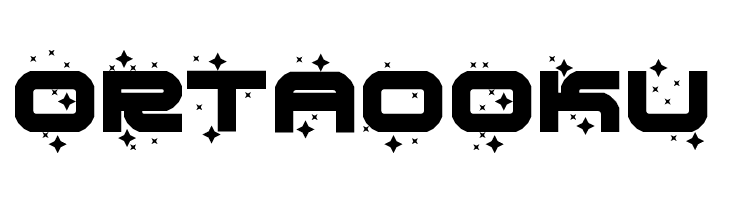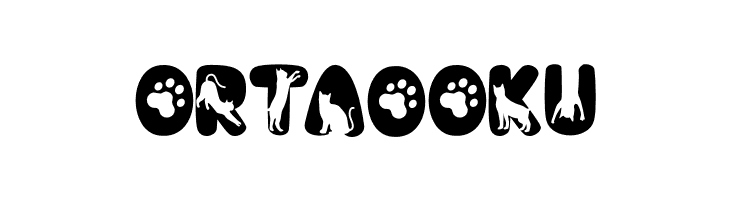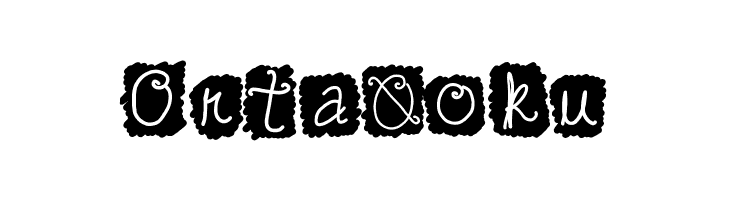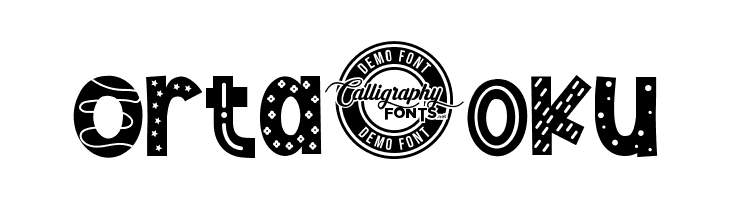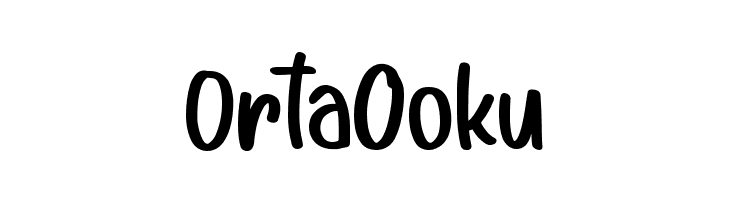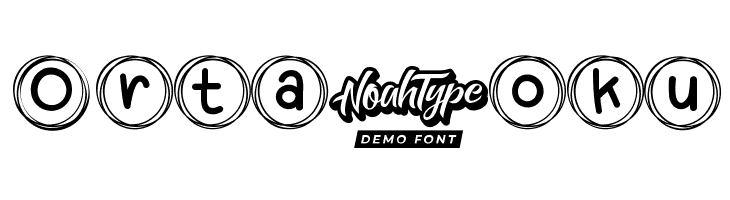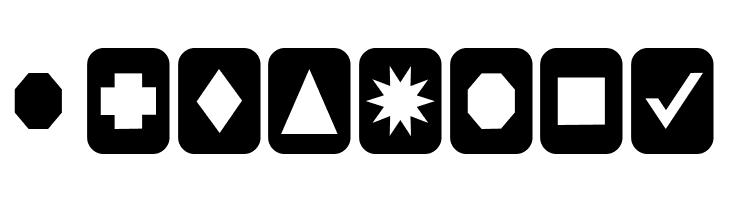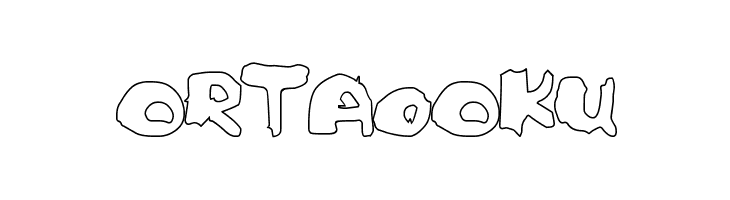
• Cut Outs for 3D FX
• Cute Cartoon
A playful, hand-drawn font with a cartoonish style and lively outlines.
• Cute Crafts Demo Decorative
A playful and decorative font with whimsical patterns and textures.
• Cute Cursive Blackout
A playful, cursive font with bold, cloud-like enclosures.
• Cute Decor Demo
A playful, decorative font with bold, rounded letters encased in circular outlines.
• Cute Meow
A playful font with cat-themed elements and bold, rounded characters.
• Cutie Biscuit
A playful, handwritten font with bold, rounded strokes and a whimsical style.
• Cutie Shark
A playful, handwritten font with smooth, rounded edges and a casual style.
• Cutie Top Regular
A bold, decorative font with star-like embellishments and a futuristic style.
• CutoutPoster
A playful, cut-out style font with bold, jagged edges.